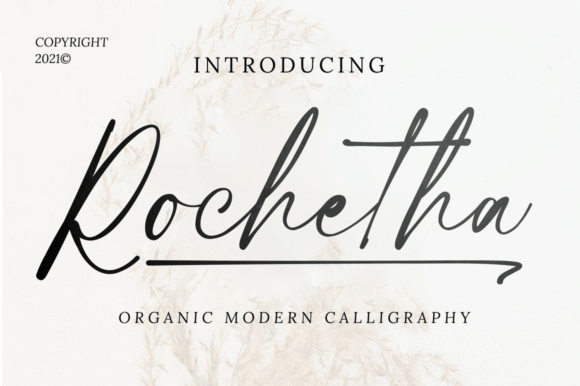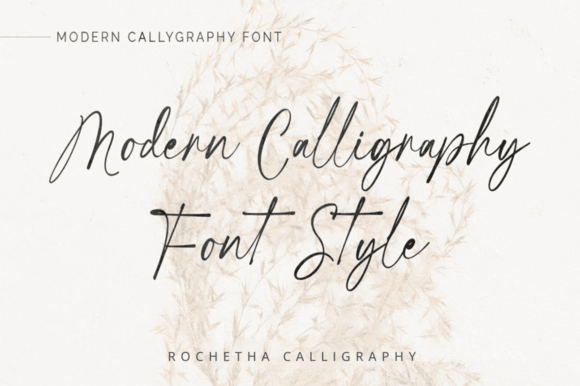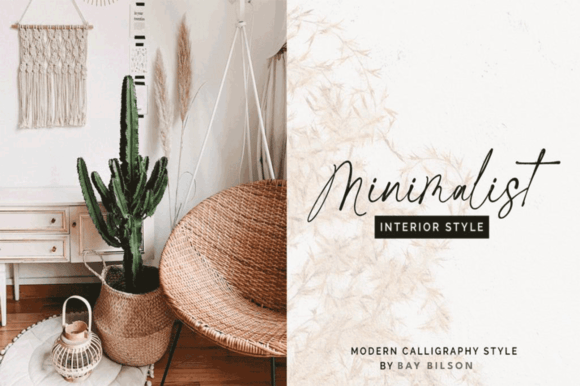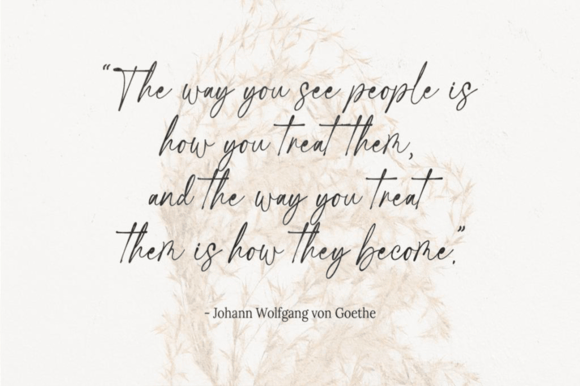
Rochetha Font: Elegant Calligraphy Script for DIY & Branding
About the Rochetha Font
Add a touch of class to your work with the Rochetha Font, a truly exceptional typeface. Rochetha is a magical script font carefully created with a touch of elegance. Whether you’re looking for fonts for Instagram or calligraphy scripts for DIY projects, this font will turn any creative idea into a true piece of art!
Rochetha’s elegant, flowing forms are ideally suited for short headlines, logos, and invitations where its refined character can shine. It works particularly well in branding for luxury goods, boutique businesses, or projects emphasizing a handcrafted aesthetic. Avoid using Rochetha for body text or lengthy paragraphs; its intricate detail can become visually overwhelming at smaller sizes.
For optimal visual balance, pair Rochetha with a clean sans-serif like Open Sans for body copy, or a geometric sans-serif such as Futura for a more modern feel. A subtle serif like Merriweather can also create a harmonious contrast, providing readability while complementing Rochetha’s script character. The key is to choose a typeface that offers a strong counterpoint to Rochetha’s decorative nature.
Rochetha projects an overall feeling of sophisticated charm and gentle elegance. It’s best used in contexts where this delicate yet refined personality aligns with the brand or project’s identity.
Rochetha Font Usage Examples
Rochetha Font Example